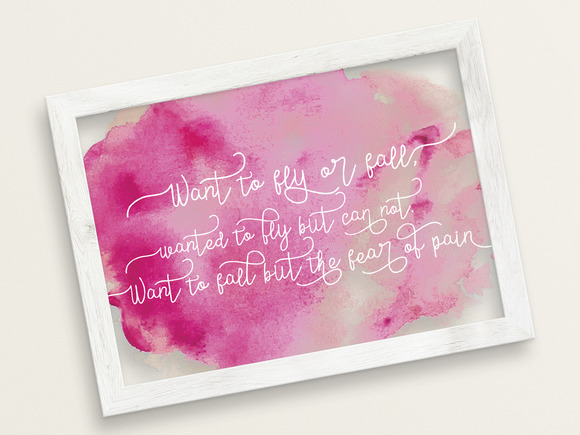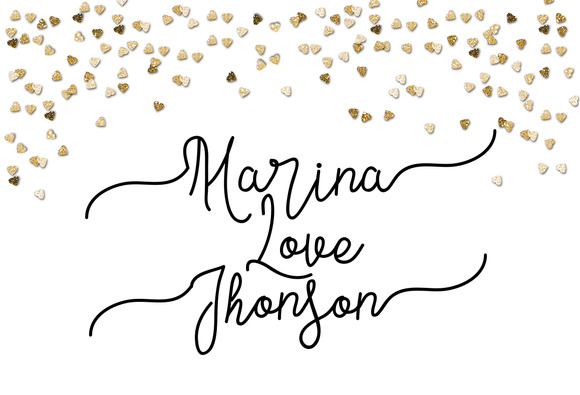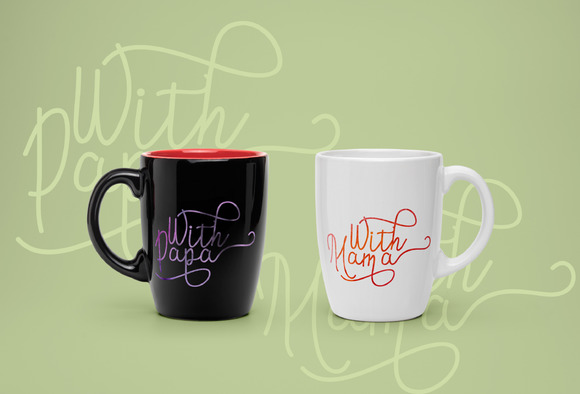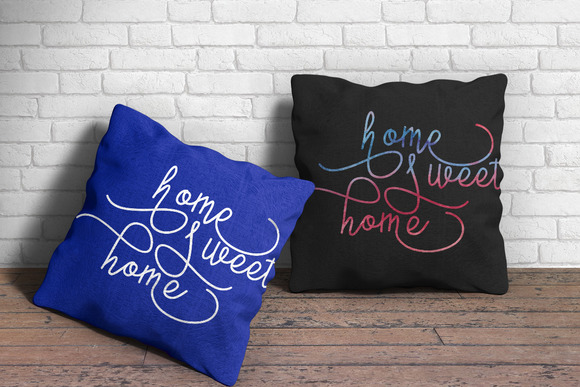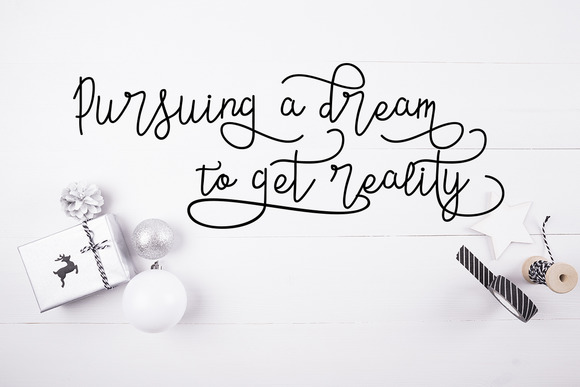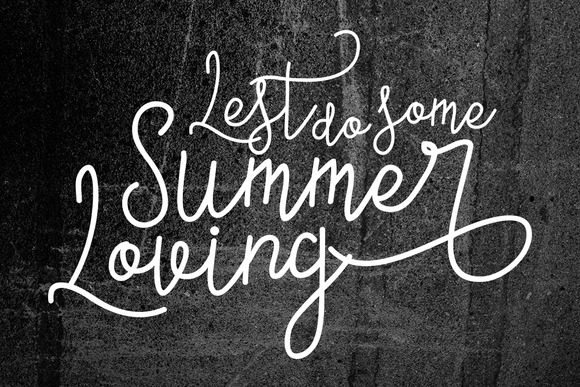
Contento Script Font
About Contento Script Font
The Contento Script font is a fresh, modern handmade script font. It offers decorative characters and has a dancing baseline.
It comes packed with 421 glyphs and is loaded with OpenType features such as:
Swashes
Stylistic Alternates
Contextual Alternates
Ligatures